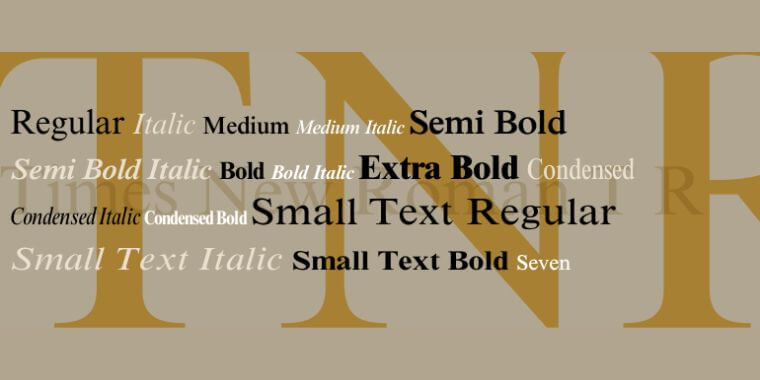
Times New Roman is a serif font designed by Stanley Morison and Victor Lardent. It came out in 1931 through Monotype. The design was inspired by Plantin, but it was made easier to read and more efficient for use in newspapers.
Times New Roman is a very common font used in digital writing because it is the default font in many word programs and web browsers.